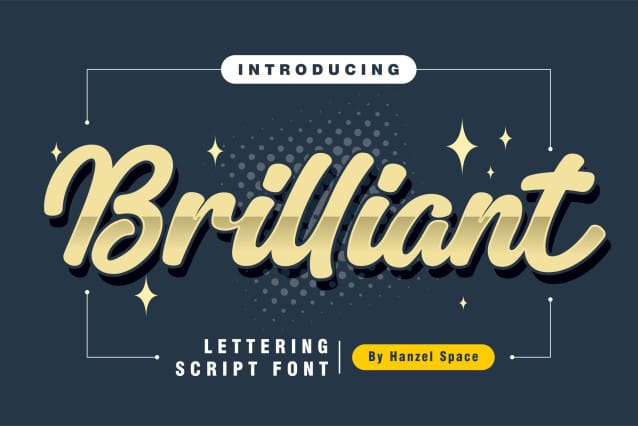
Brilliant Style Script Font
Brilliant Style Script Font, this font has a vintage touch and a modern look to each letter, slightly rounded and neat shapes in each curve, plus a Stylistic feature at the end of the letters.
We design this font in such a way that it is suitable when used for design projects so that it looks very attractive. And you can also use this font for logos, branding, brochures, names on product packaging and so on.